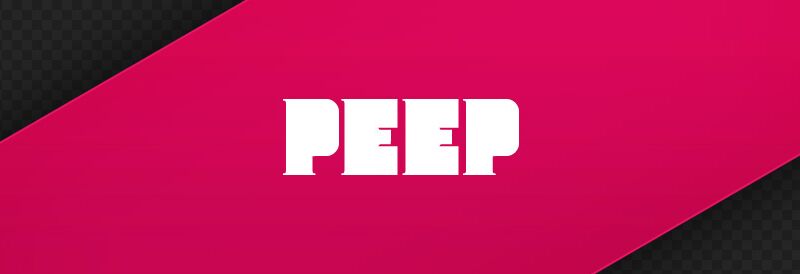
Peep by Michael Tanner and Jacob King is a free decorative display font with towering, ultra-heavy letters and abrupt white cuts that break into the dark shapes. Rounded shoulders meet squared edges, producing a compact industrial silhouette with a slightly surreal edge.
It can turn a title into a wall-like graphic element. Poster campaigns and music artwork suit its dense mass, especially when the lettering needs to echo hard-edged photography or stark collage. The same carved shapes give packaging, event graphics, and merchandise a forceful motif that feels closer to a custom emblem than ordinary type.